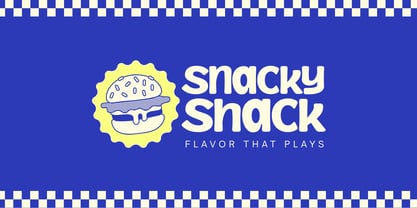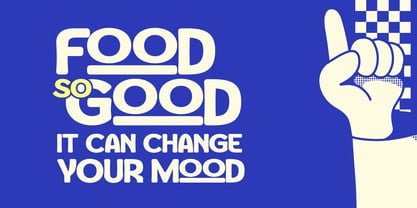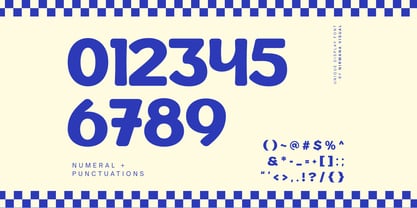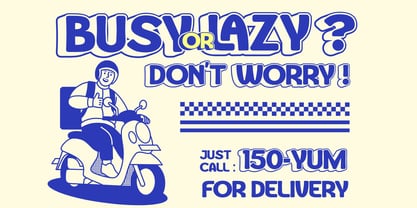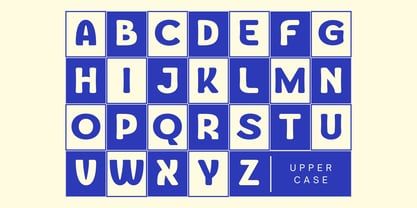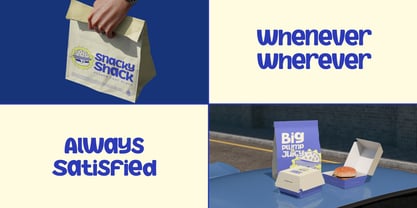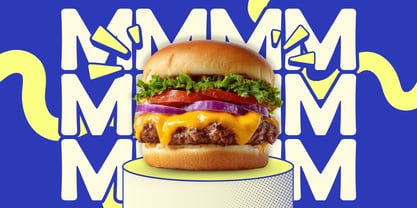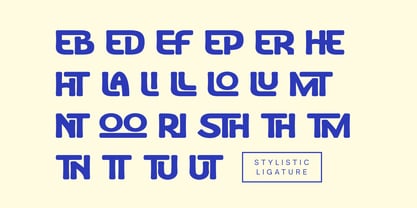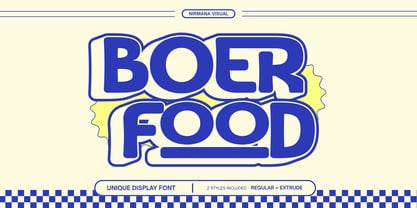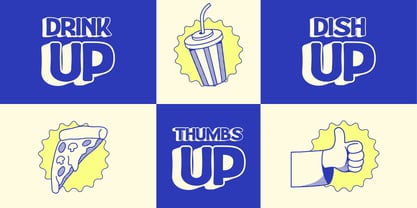
Boer Food
por Nirmana Visual
La familia tipográfica Boer Food fue diseñada por Sigit Dwipa y publicada por Nirmana Visual. Boer Food contiene 2 estilos y opciones de paquete familiar. Más información sobre esta familia
Boer Food is a bold, expressive food branding font designed to make your visuals instantly appetising. Built with strong bold letterforms and eye-catching extrude styles, this font brings depth, impact, and character to logos, restaurant branding, menus, food packaging, labels, signage, and promotions. Its solid structure ensures high readability while the extruded effect adds a playful yet powerful dimension, perfect for modern eateries, street food brands, and retro-inspired food concepts that want to stand out and leave a lasting impression.
Diseñadores: Sigit Dwipa
Fundición: Nirmana Visual